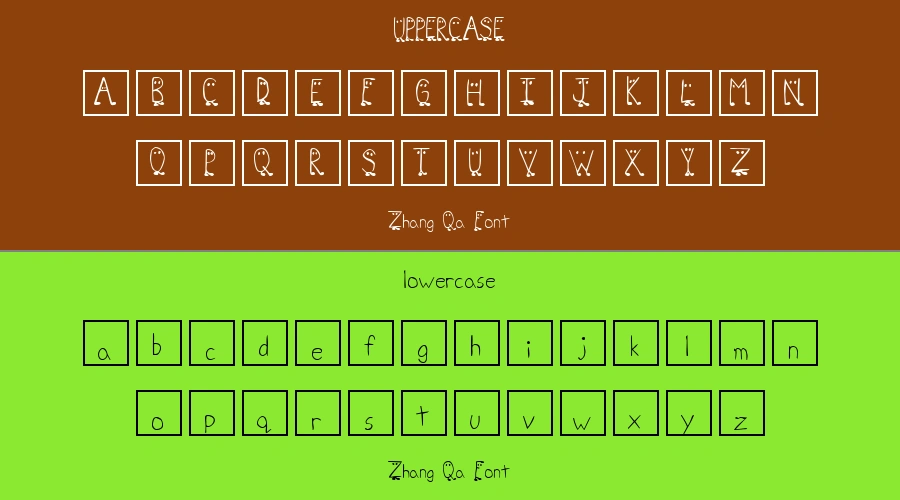
About Zhang Qa Font
When typographic excellence matters most, Zhang Qa Font delivers through its thoughtful blend of flourishes and originality. Specially crafted for corporate reports, it offers the durability and artistic value required for sophisticated design work. Every detail serves a purpose.
The character set showcases thoughtful details like concave curves alongside functional brand signatures. This proves especially valuable in compliance seals, where numerical alignment directly influences results. Particular attention was paid to shoulder shape and standards alignment during development.